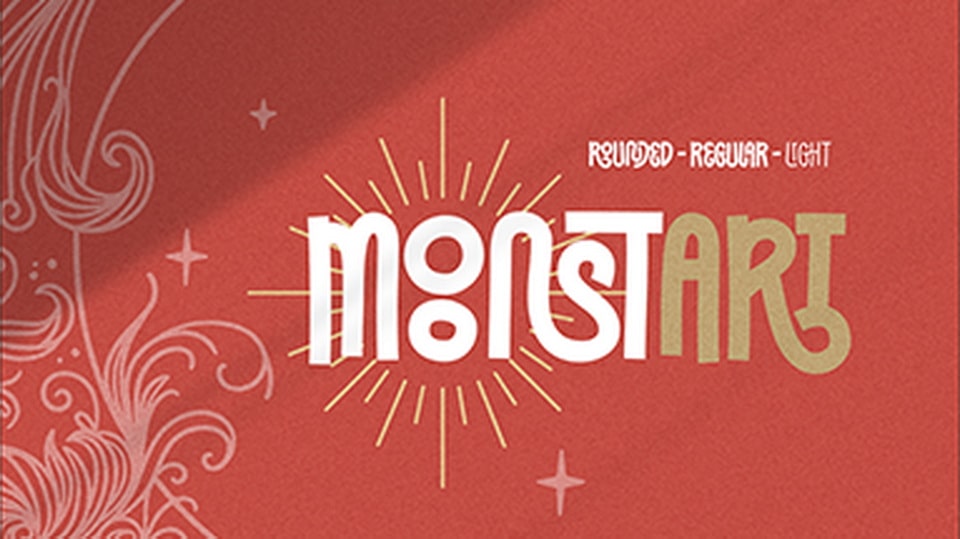
Moonstart Font › Fontesk – Download Grátis
Download Moonstart font, a sophisticated condensed decorative typeface, designed to bring an elegant and personal touch to your projects.